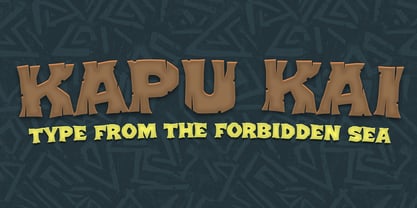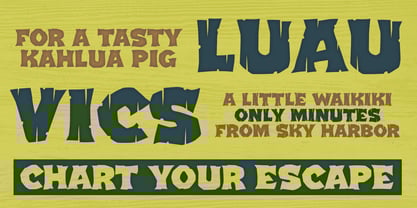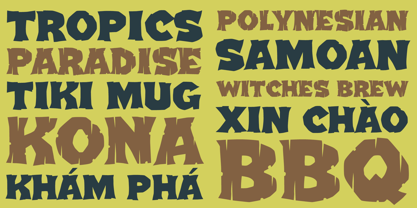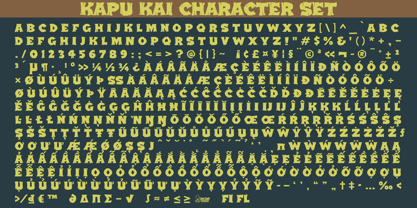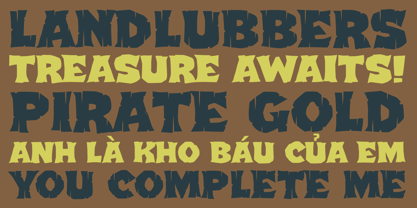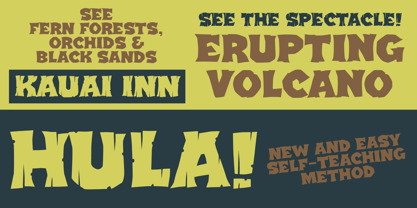
Kapu Kai
by One Eyed Squid
The Kapu Kai Font Family was designed by Brian J. Bonislawsky, Dave Cohen and published by One Eyed Squid. Kapu Kai contains 2 styles and family package options. More about this family
Kapu Kai is a tiki-inspired display font family steeped in adventure, mystery, and vintage island flavor. Drawing from Polynesian and pirate-inflected design influences, its bold letterforms bring an exotic, weathered personality to creative work that calls for a tropical retro atmosphere. Available in Aged (Regular) and Solid styles, Kapu Kai offers flexible options for posters, branding, packaging, signage, restaurant graphics, event materials, and other designs that want a strong mid-century tiki lounge or forbidden-seas vibe. Includes extended Latin language support, including Vietnamese.
Designers: Brian J. Bonislawsky, Dave Cohen
Foundry: One Eyed Squid
Dave "Squid" Cohen & Brian "Stiggy" Bonislawsky combine their fontmaking talents to bring you an array of fun and entertaining typefaces loaded with animated and diverse retro flavor.You may know Dave Cohen's fonts from Sideshow and Neapolitan type foundries, as you may know Brian Bonislawsky's fonts from Astigmatic (AOETI), Grype, Pink Broccoli, Monogram Fonts Co., Stiggy & Sands, and VersusTwin type foundries.So what is this foundry all about? It's all about bringing collaborative skills to bear to express more of their crazy typographic ideas and create even more exciting fonts to the design community.